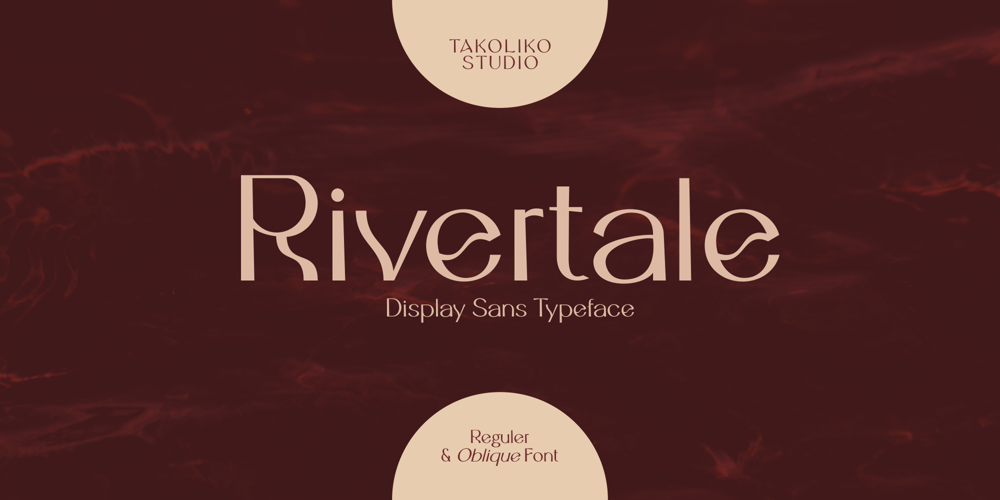
Rivertale
Rivertale font
Rivertale Font Family was designed by Deni Hidayat and published by takoliko. Rivertale contains 2 styles and family package options. Rivertale inspired by the flow of a river. Rivertale have a little bit of a wavy curve on some gliph that give a little psychedelic touch. Rivertale have a flexibility to used as a formal font or a more casual font and it give a little bit feminim style. Rivertale came with Reguler and Oblique fonts. It has a ligature and support multilingual language. It can easily be matched to an incredibly large set of projects, and good for communicating your brands.